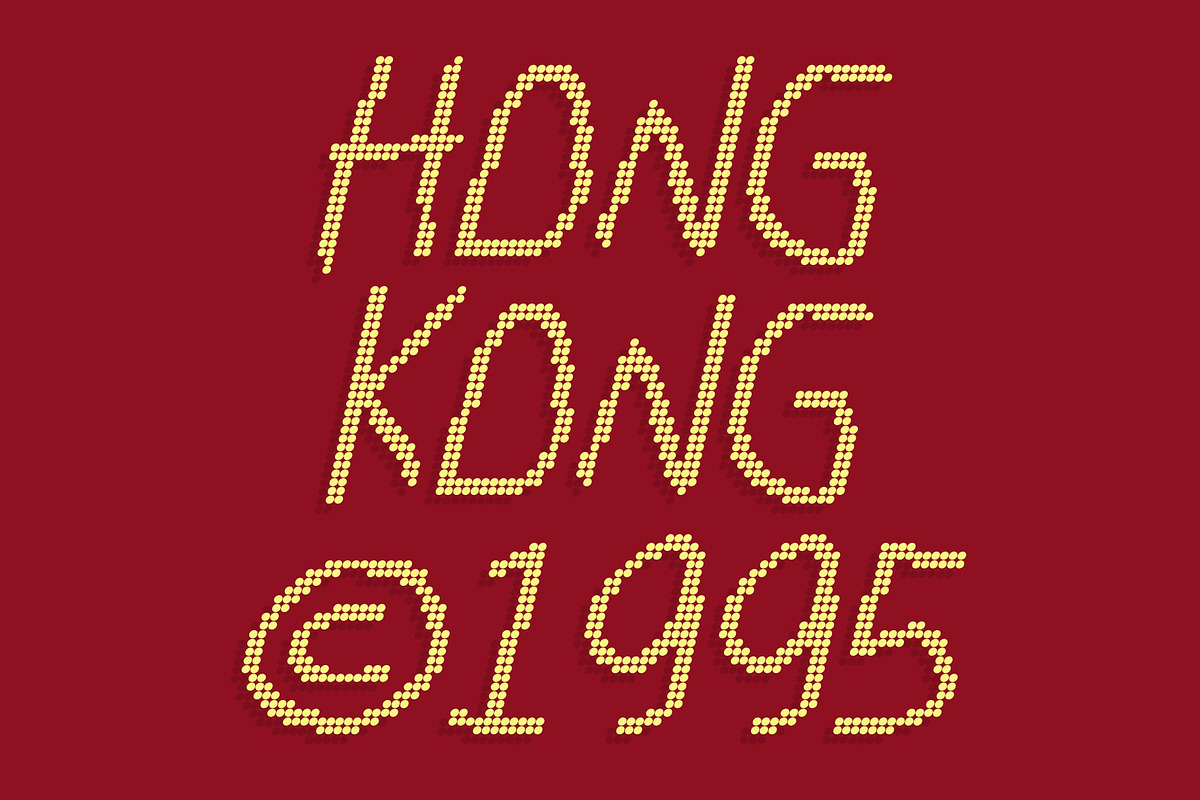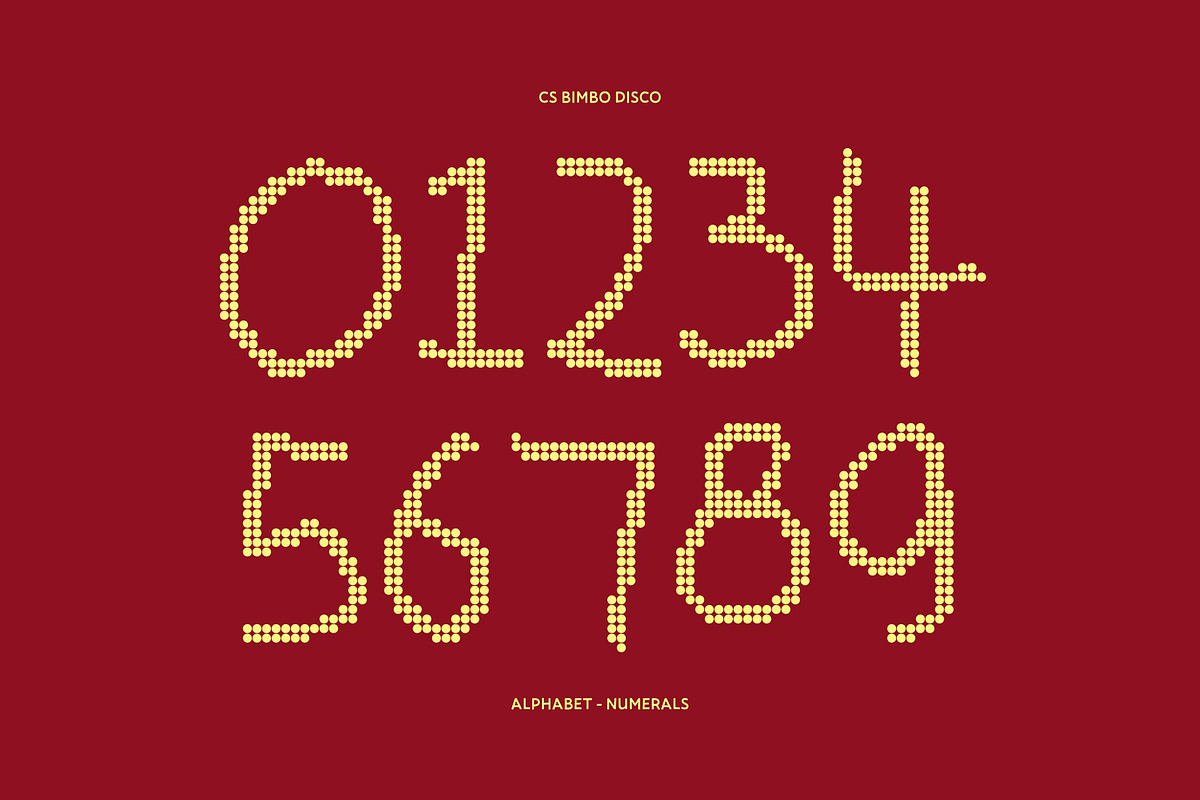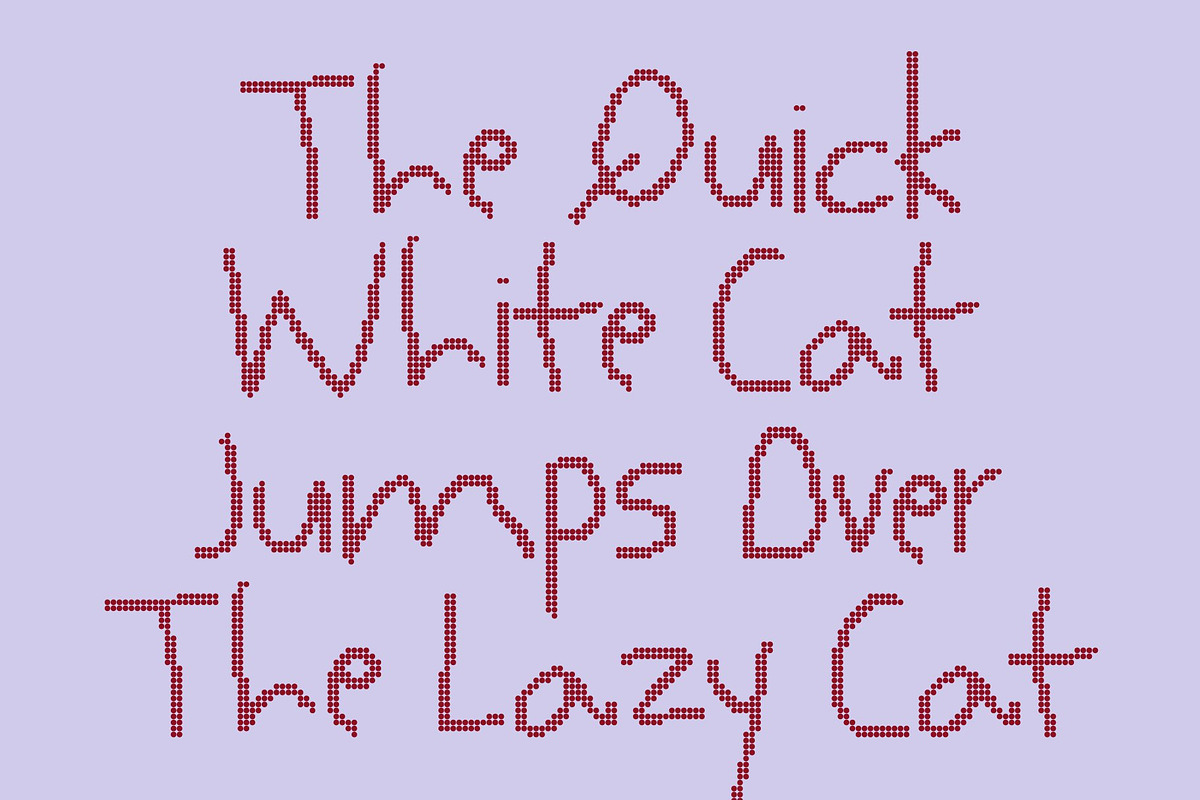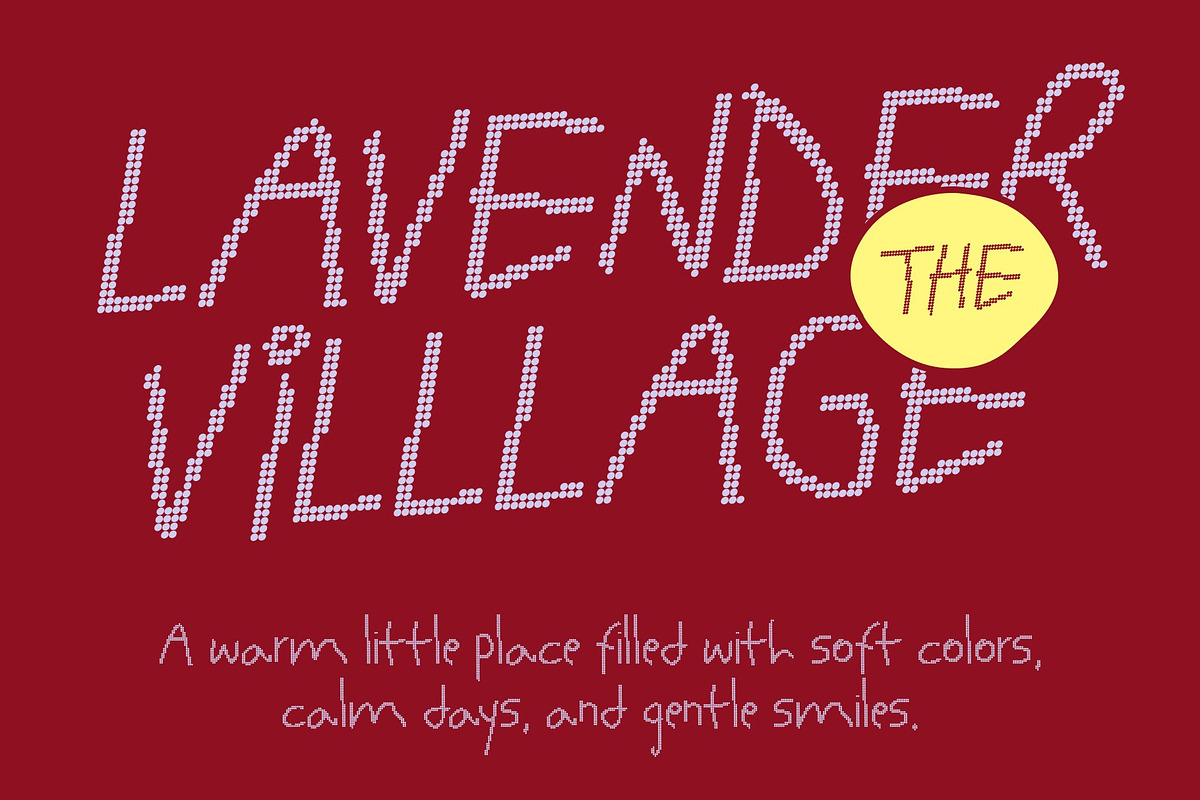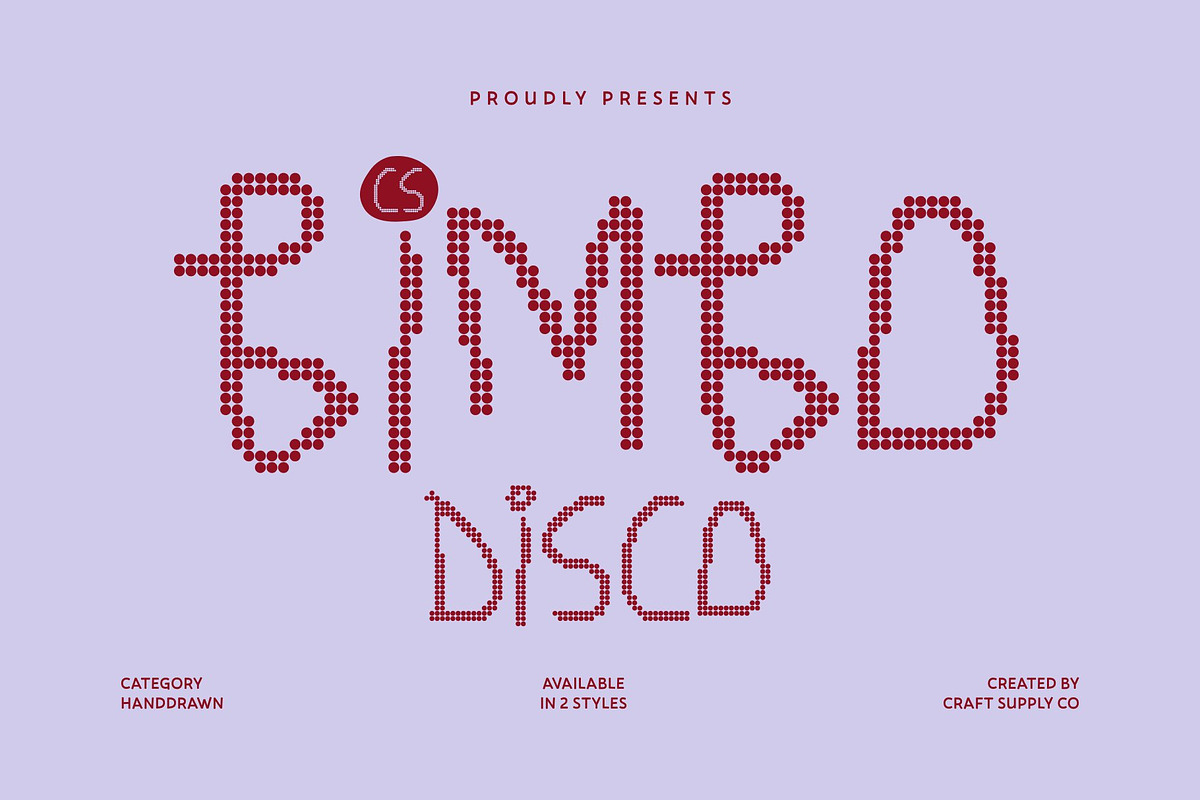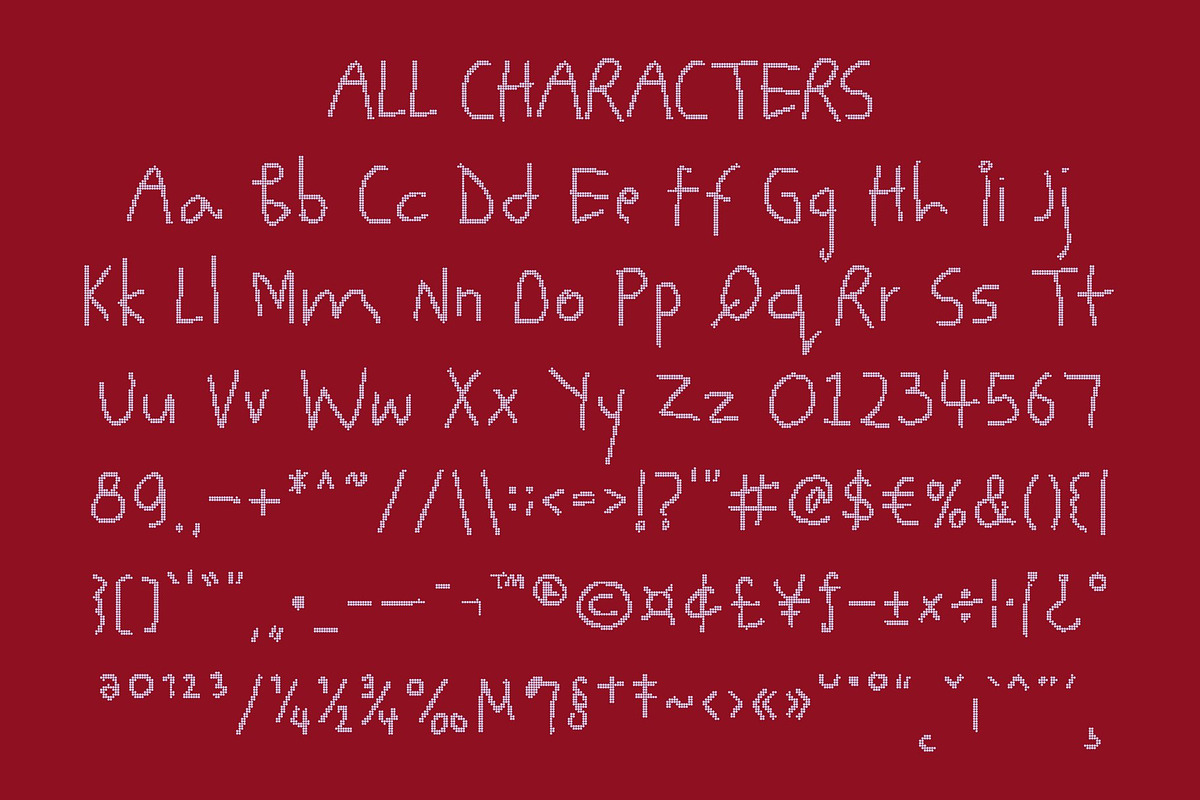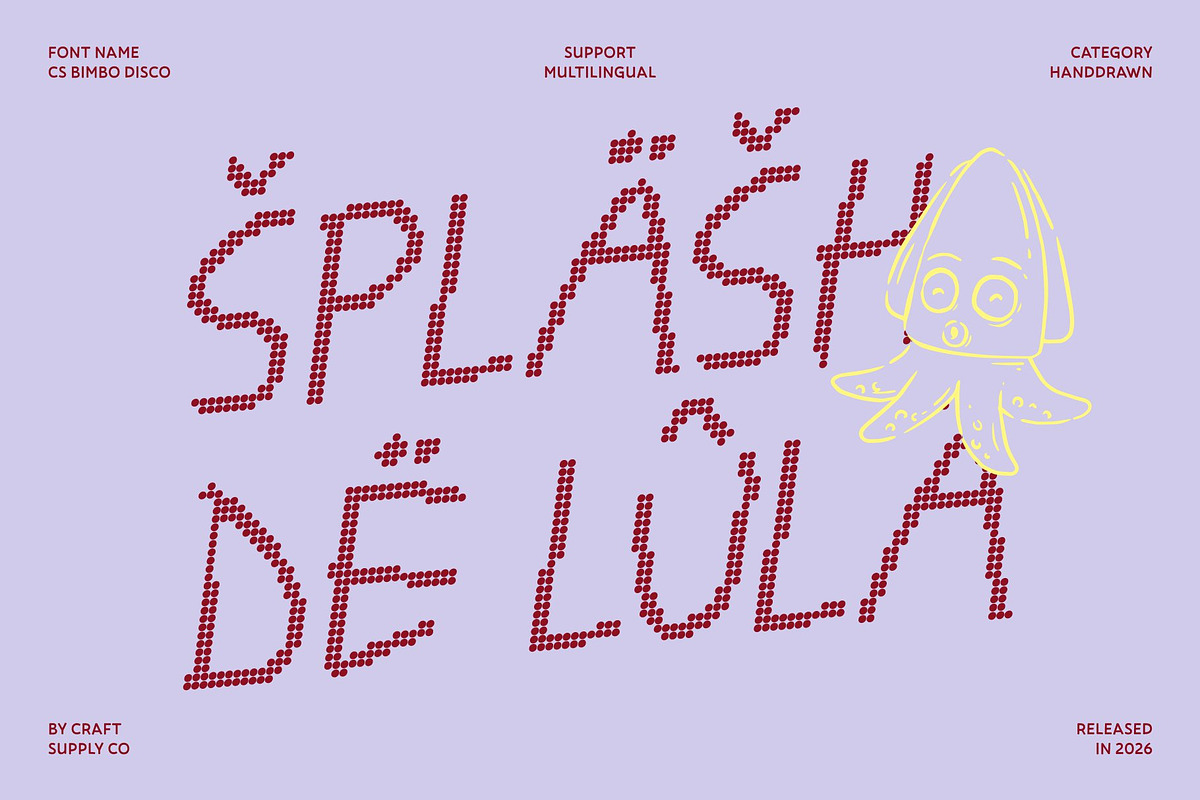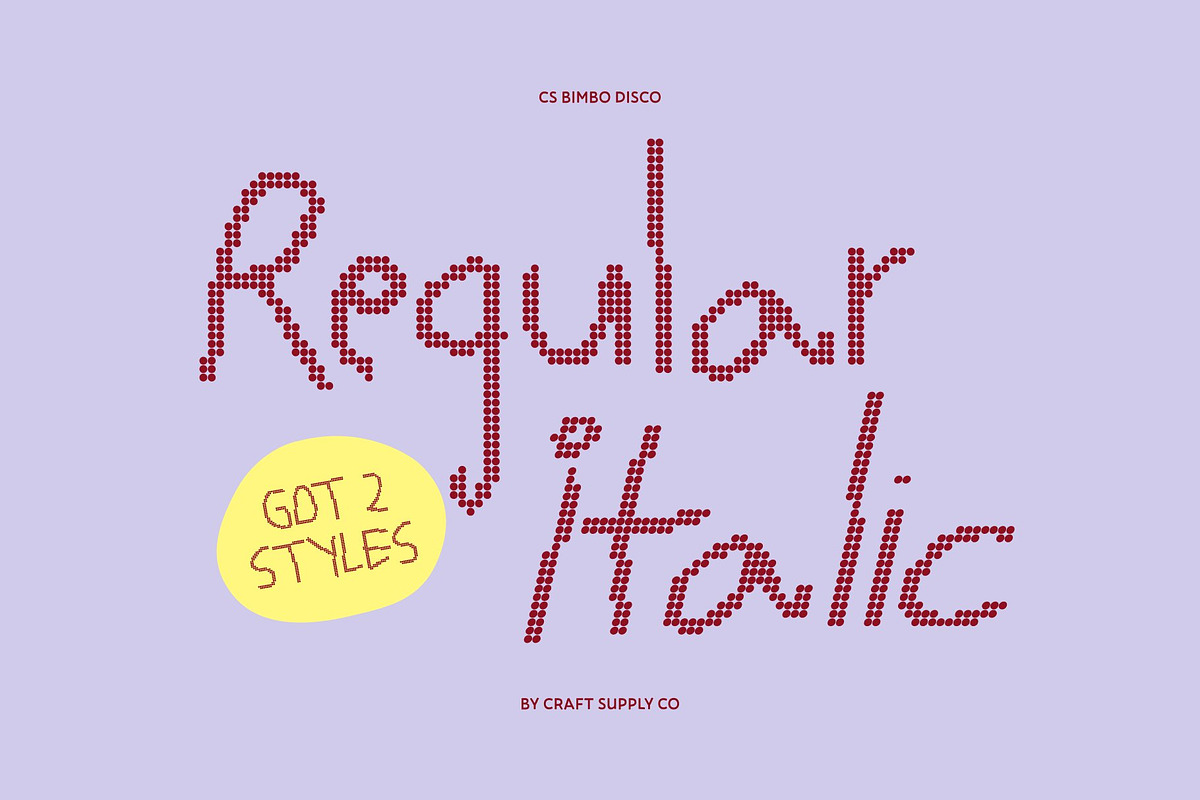
CS Bimbo Disco
CS Bimbo Disco – Playful Chaos with Retro Disco Scribble
Messy Display Font with Irregular Disco Personality This is a gritty, stylish messy font designed to turn imperfection into playful expression. Its irregular, freely scribbled letterforms capture the spontaneous energy of disco-era fun, infusing every design with rhythm, movement, and a cheerful, carefree vibe.
Raw, Handcrafted Energy with Retro Flair Each letter carries the texture of hand-drawn strokes and uneven lines, giving the font a natural, unpolished charm. Inspired by the bold, quirky visuals of 70s and early 80s disco, it exudes warmth, creativity, and a sense of lively spontaneity that feels both nostalgic and fresh.
Quirky, Expressive, and Energetic The font’s playful irregularity makes it ideal for designs that want to feel youthful, energetic, and original. Its imperfect beauty adds character and charm, making text feel dynamic, fun, and full of personality perfect for eye-catching digital or print projects.
Perfect for Fun, Creative, and Retro-Inspired Designs Whether used for children’s graphics, playful branding, quirky illustrations, or retro-inspired event materials, this font delivers a carefree and expressive vibe. It’s the perfect choice for designers who want to celebrate imagination, spontaneity, and the joyful spirit of disco.
CS Bimbo Disco Regular
CS Bimbo Disco Italic